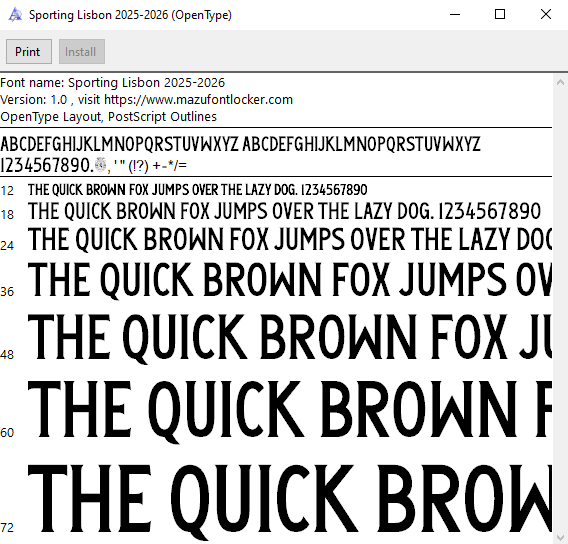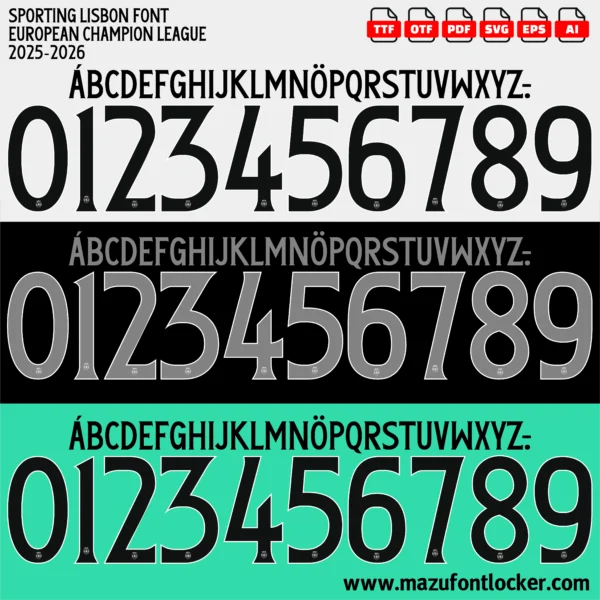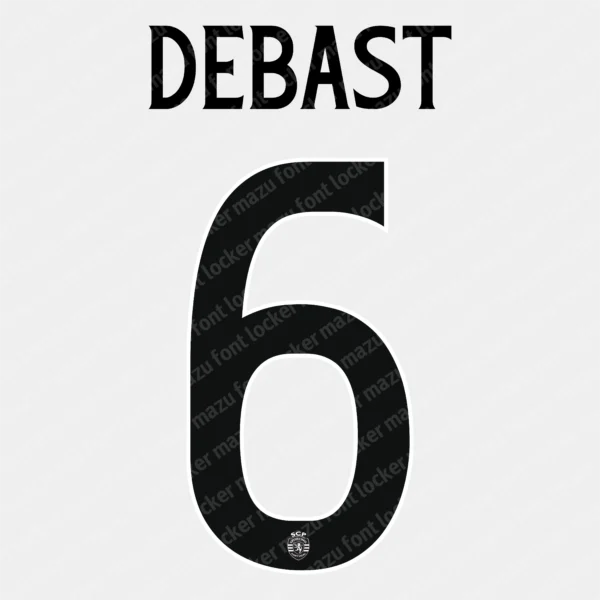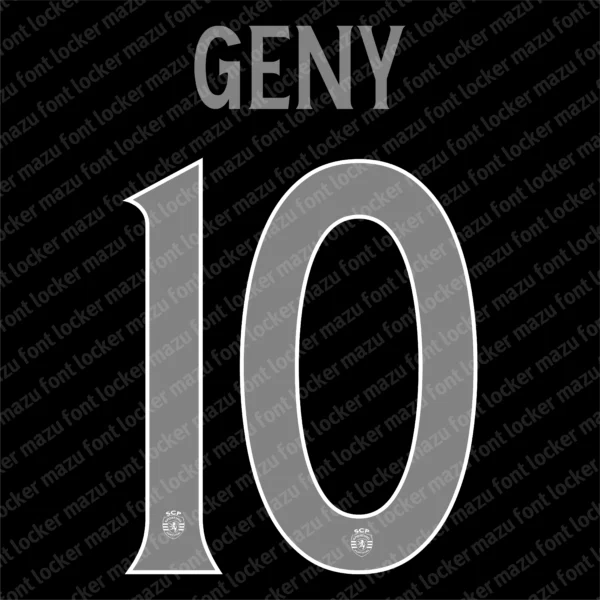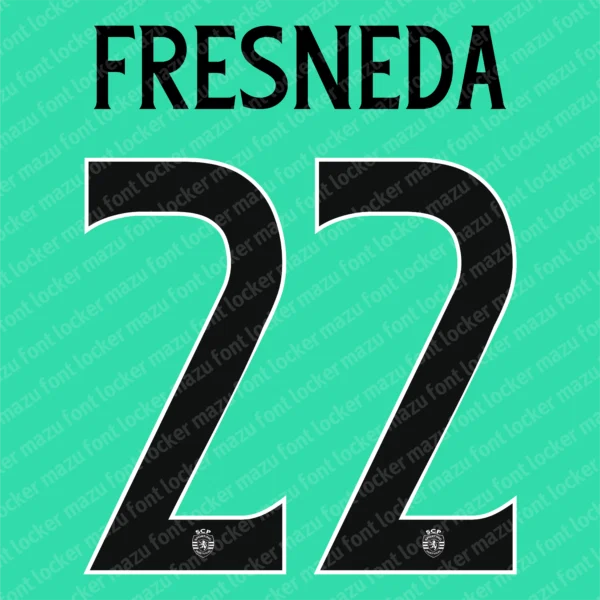
Sporting Lisbon 2025-2026 Font Vector – Stunning Leões Masterpiece
This font locks in the aggressive, clean-cut, thunder-strike lettering that defines Sporting Lisbon’s iconic identity, Portuguese soccer heritage, lion-hearted passion, and elite European power — delivering raw authenticity, premium punch, explosive intensity, and true Sporting dominance for jersey mockups, dynamic sports graphics, pro branding, and high-impact fan designs.
Sporting Lisbon 2025-2026 Font Vector – Stunning Green & White Typeface
The Sporting Lisbon 2025-2026 Font Vector is a premium typeface that accurately recreates the distinctive match lettering associated with Sporting Clube de Portugal during the 2025-2026 season. This high-quality vector font kit captures the bold, clean, and instantly recognizable typography that perfectly complements the club’s iconic green and white identity.
Designed for professional designers, football enthusiasts, jersey collectors, and passionate Sporting supporters, the Sporting Lisbon 2025-2026 Font Vector delivers exceptional authenticity for creating realistic jersey mockups, soccer merchandise, social media graphics, match posters, squad designs, and custom fan artwork. Every character has been carefully recreated to reflect the powerful and precise visual style of one of Portugal’s most historic and successful clubs.
Why Choose Sporting Lisbon 2025-2026 Font Vector
This font stands out thanks to its precise vector construction and authentic club-inspired styling. Every letter and numeral has been meticulously recreated to match the distinctive football lettering aesthetic associated with Sporting Lisbon during the 2025-2026 season and its domestic and European campaigns.
Whether you’re producing professional soccer kit templates, custom jersey concepts, or eye-catching football content, the Sporting Lisbon 2025-2026 Font Vector delivers a genuine match-ready appearance inspired by the identity of the Lions of Lisbon.
The lettering featured in the Sporting Lisbon 2025-2026 Font Vector combines clean geometric lines with bold modern proportions. The result is a premium and highly readable typeface that reflects Sporting’s rich football heritage, iconic green and white colors, Portuguese soccer identity, and passionate fanbase.
The numerals feature balanced curves, sharp edges, and consistent spacing for maximum readability on soccer jerseys and digital media. Built entirely as scalable vectors, every number remains crisp and clear for jersey customization, posters, banners, print projects, social media graphics, and high-resolution football artwork.
• Complete uppercase A–Z alphabet and numbers 0–9 in authentic Sporting Lisbon 2025-2026 inspired style
• Special Sporting badge glyph – Press the “:” (Colon) key to insert the club badge